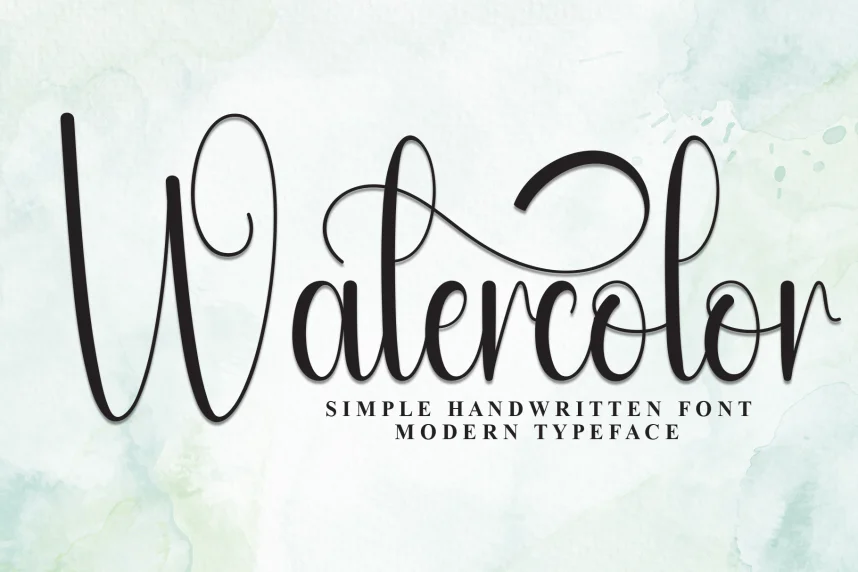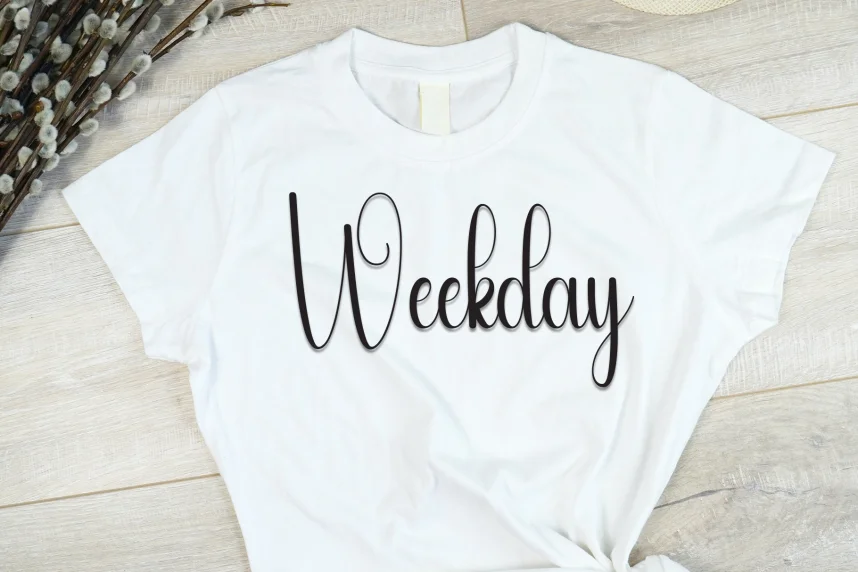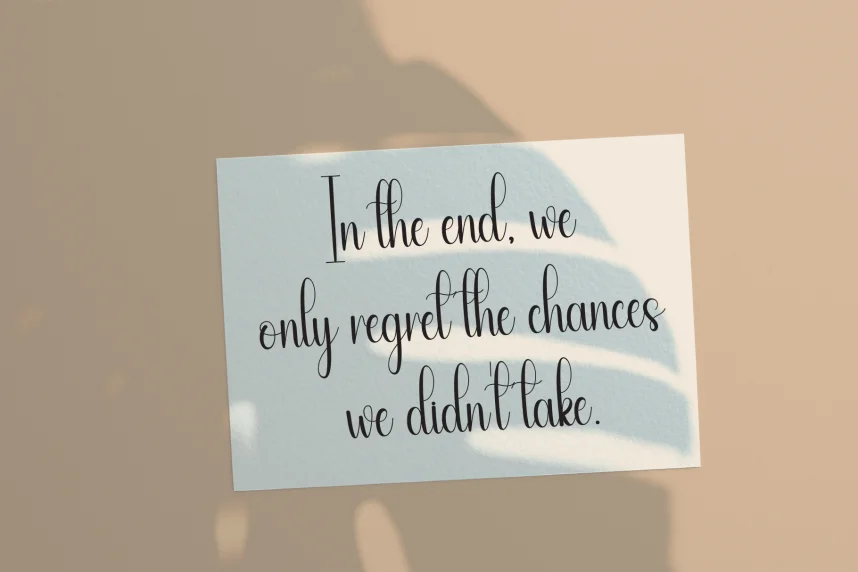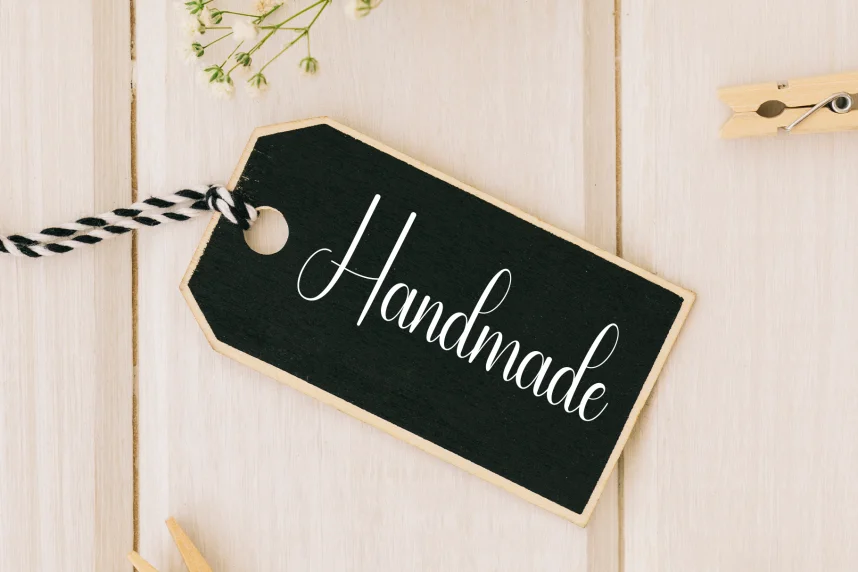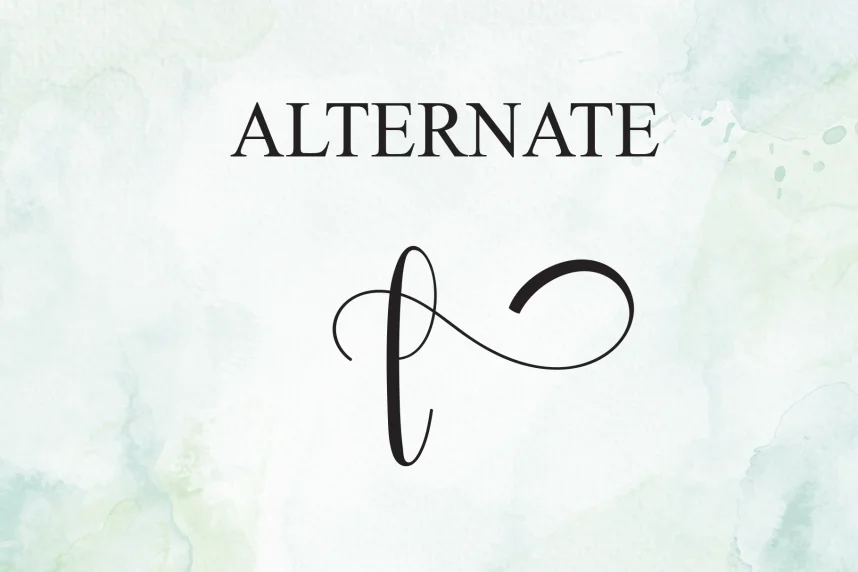
Watercolor – Elegant Script Handwritten Font addresses the need for a delicate, artistic font that maintains clarity while showcasing creativity. Designers often use it for projects that need a personalized, flowing style without sacrificing readability.
Watercolor is a script font with smooth, flowing letterforms and organic curves. The strokes mimic the delicate touch of a paintbrush, giving it an artistic, elegant feel. The font is ideal for short text that needs a unique, sophisticated look.